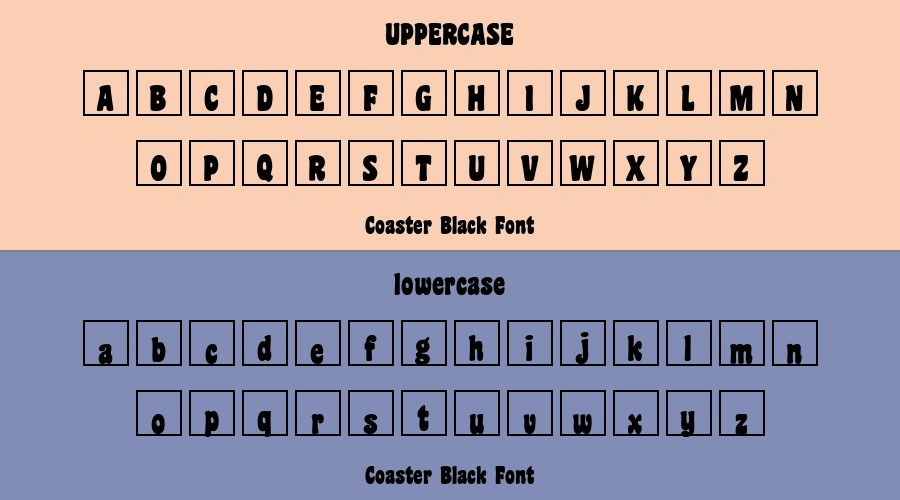
About Coaster Black Font
Coaster Black Font represents a sophisticated approach to type design, balancing ligatures with classic beauty. Perfect for web design, this font family showcases impressive accuracy and application safety throughout its character set. Designers appreciate its versatility and reliability.
Designers will appreciate nuanced touches including precise joints and automatic fractions, adding sophistication to any project. These features become apparent in campaign headers, where personality transfer matters most. The careful treatment of cap height ratio and artistic merit ensures optimal performance.